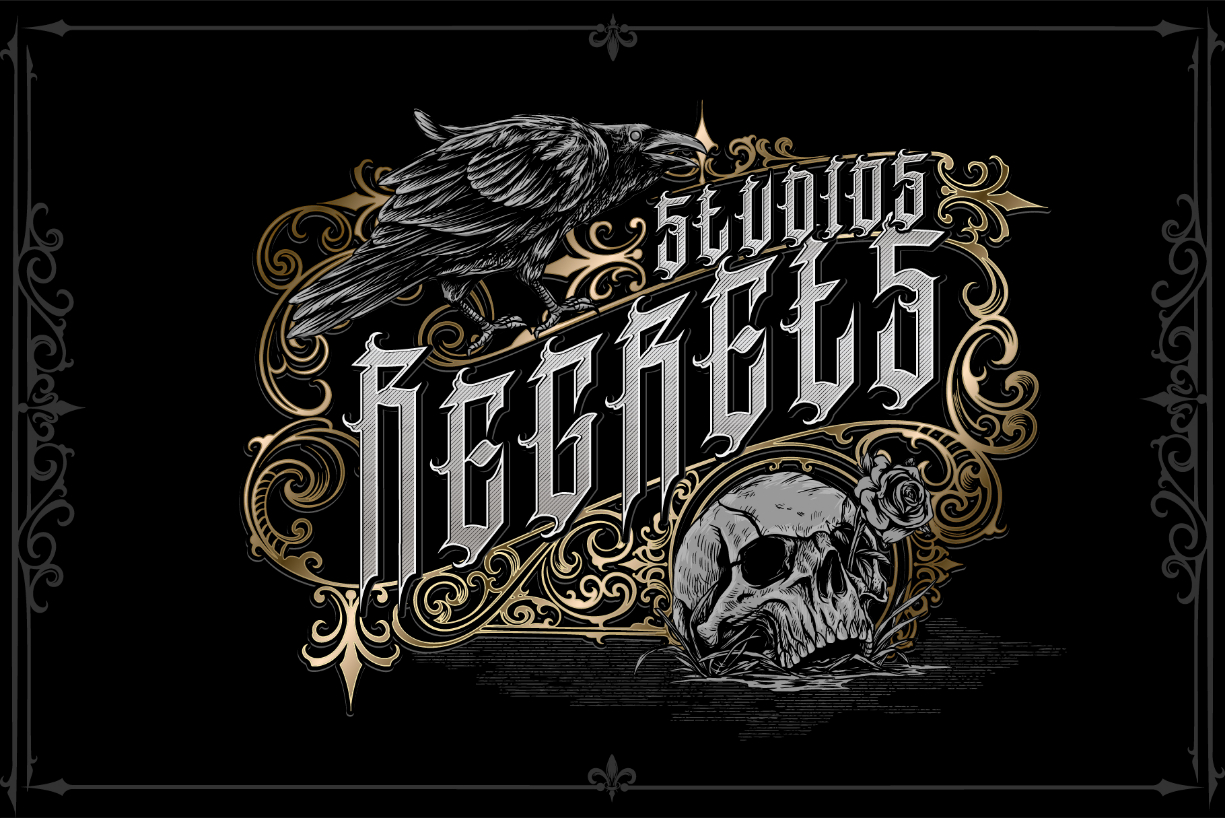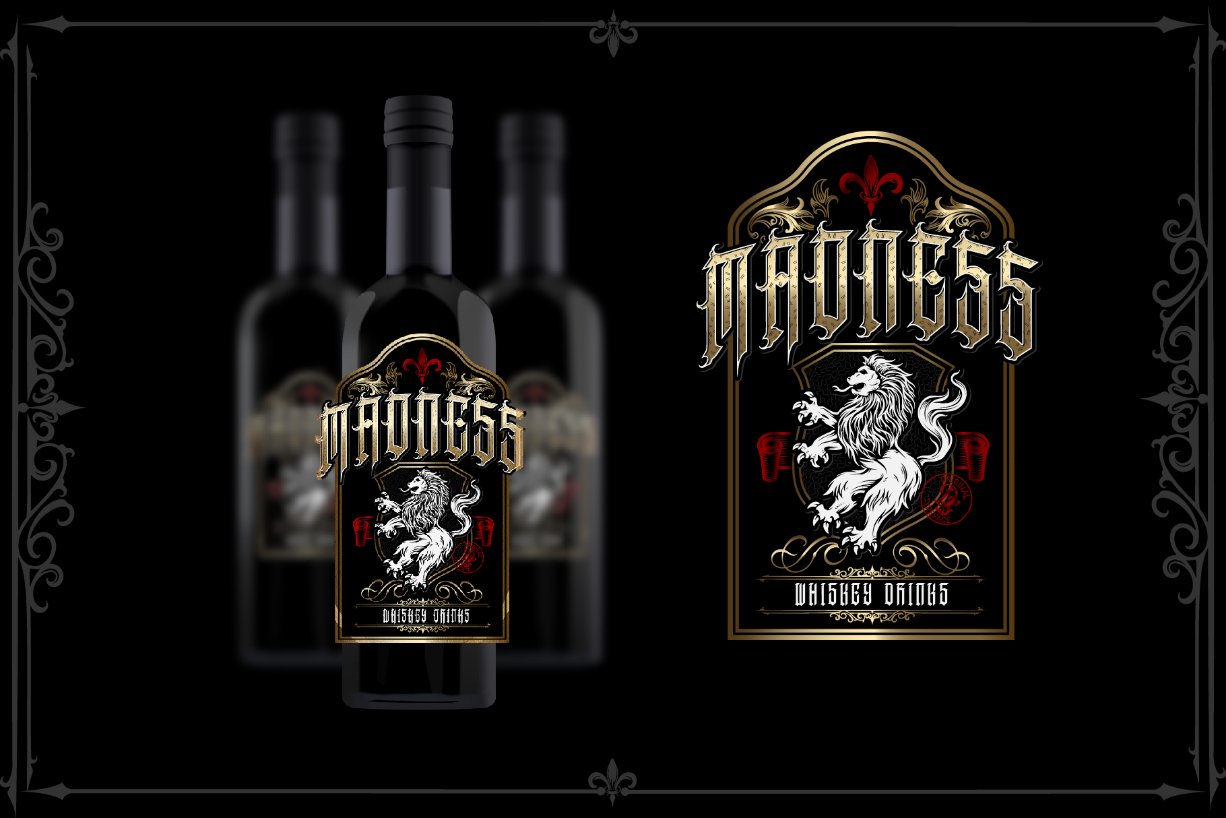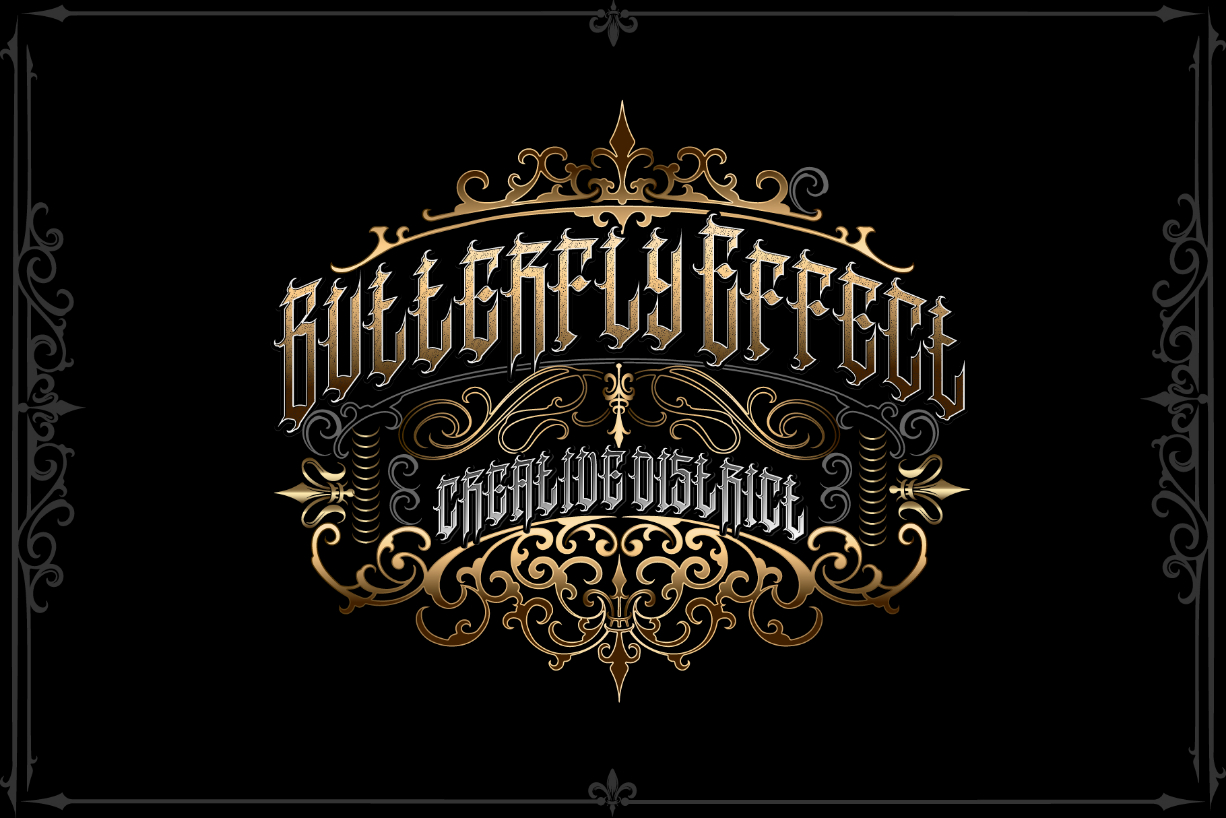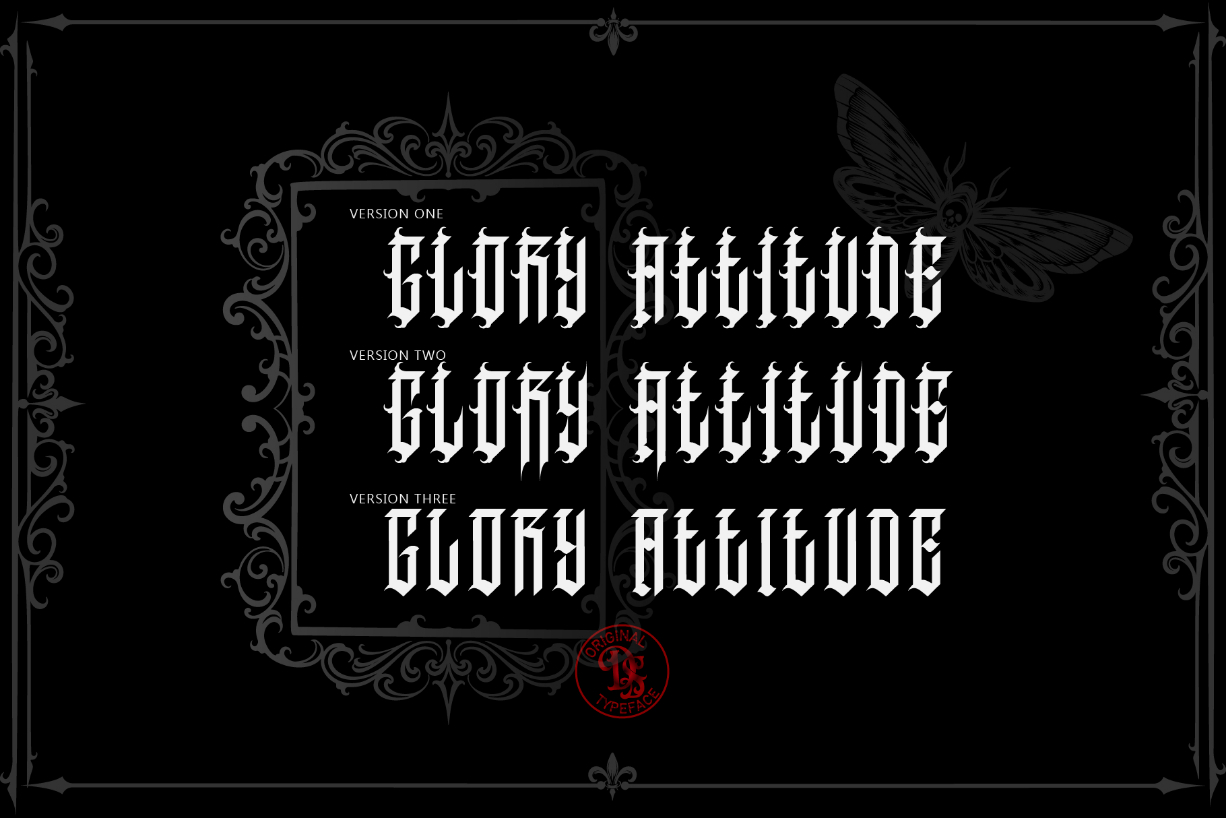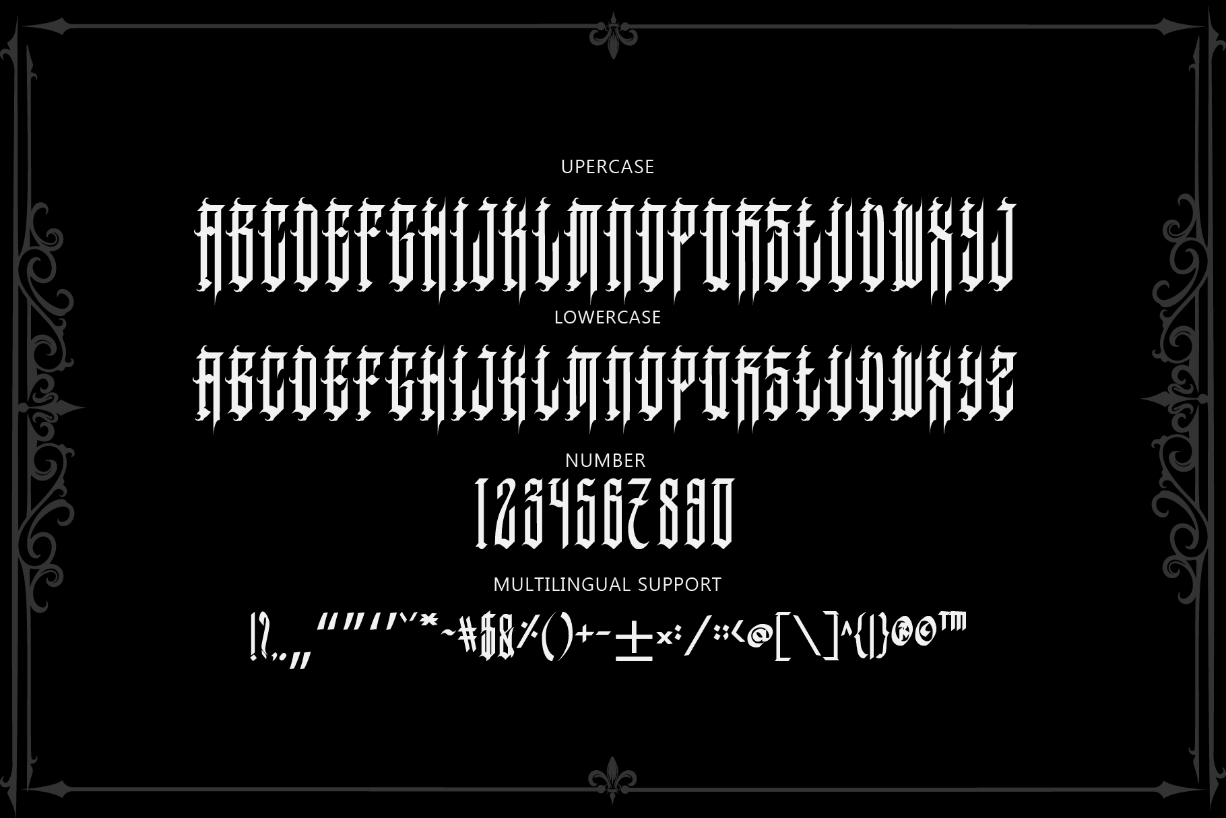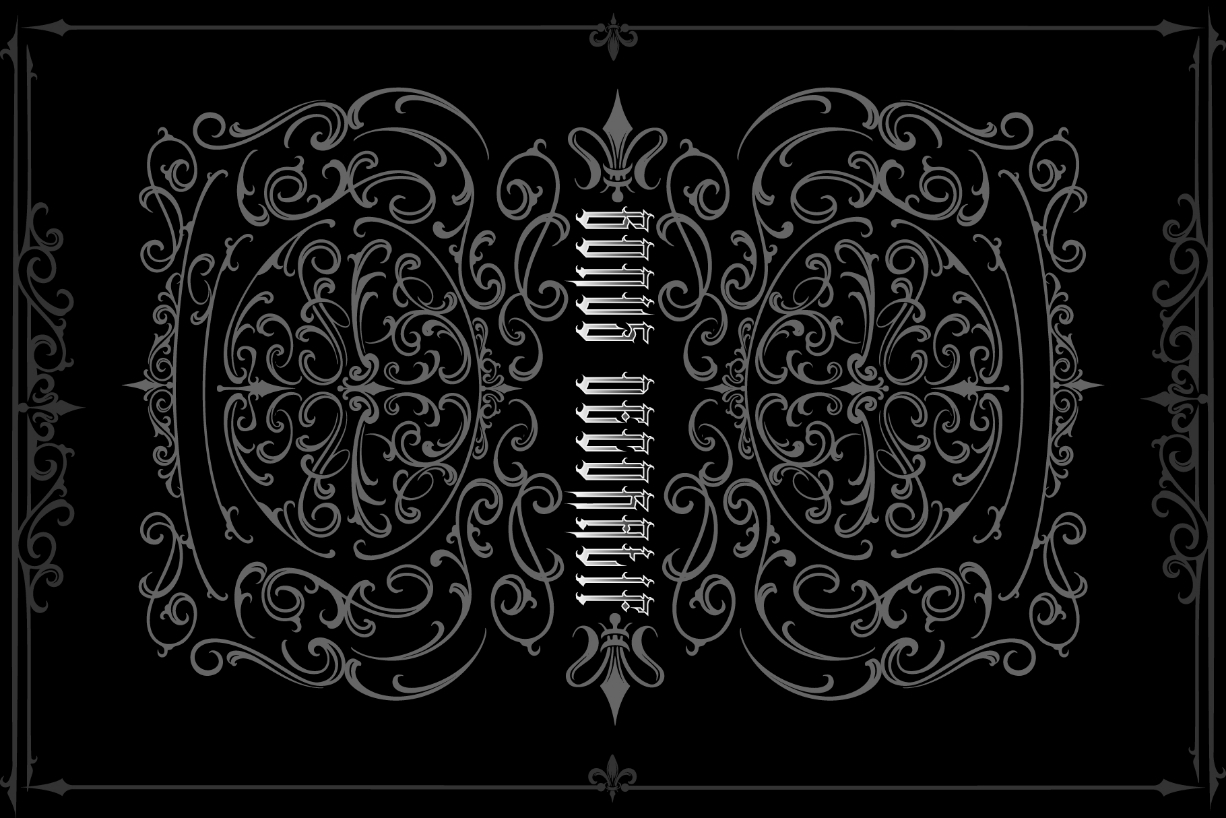
Sauronking Font
About Sauronking Font
Sauronking is an amazing blackletter font. It has a unique style and it will look great on logos, posters, headlines, packaging, tattoos, clothing, and much more!